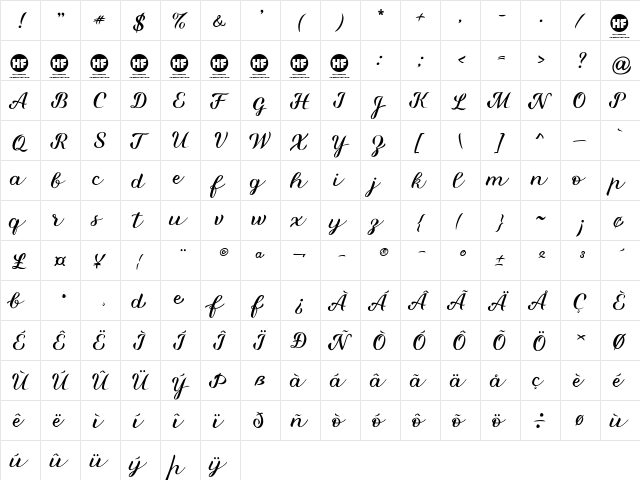
Miralight Demo Regular
| Foundry | Guilhem Greco / Herofonts |
| Designer | Guilhem Greco |
Design Context for Miralight Demo Typeface
Miralight Demo is a composed and adaptable typeface that performs quietly and consistently across a wide range of design contexts. The delicate stroke weight brings airiness and refinement to layouts.